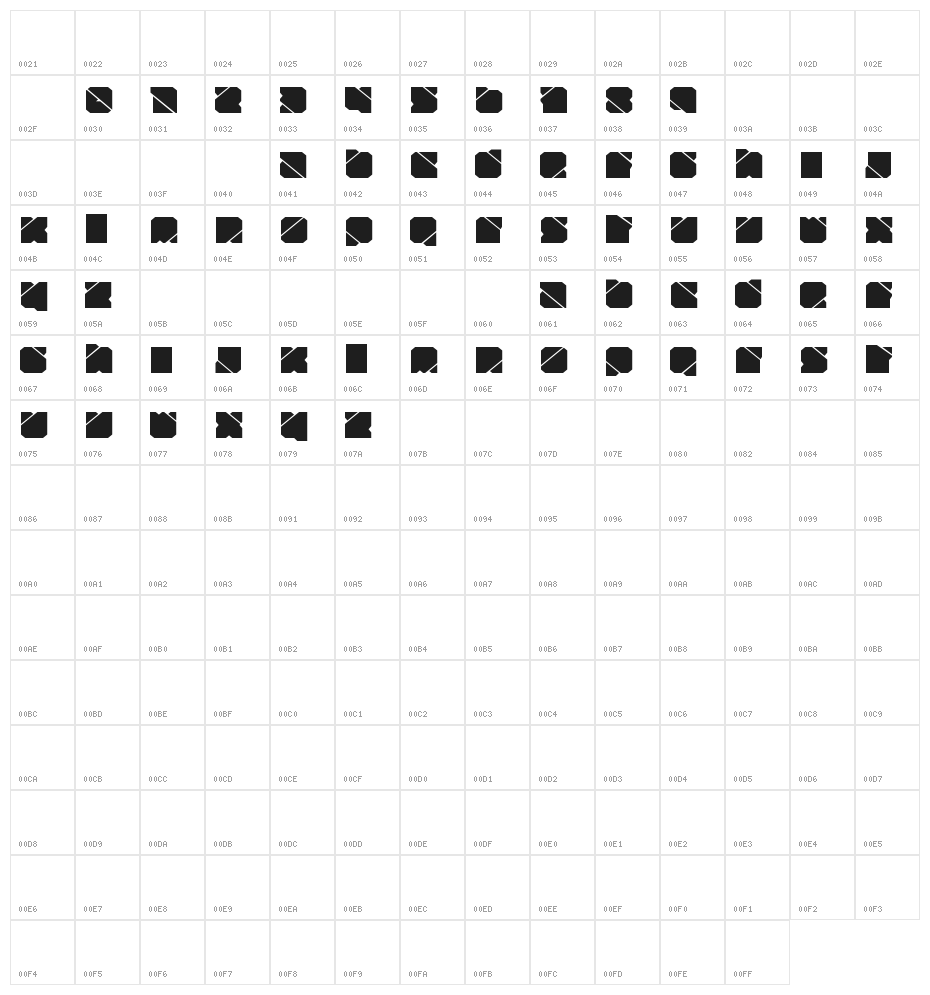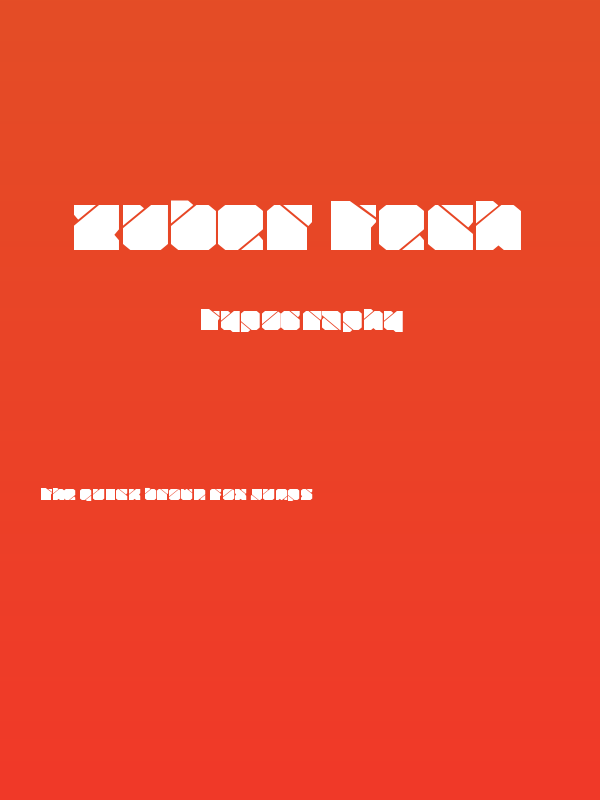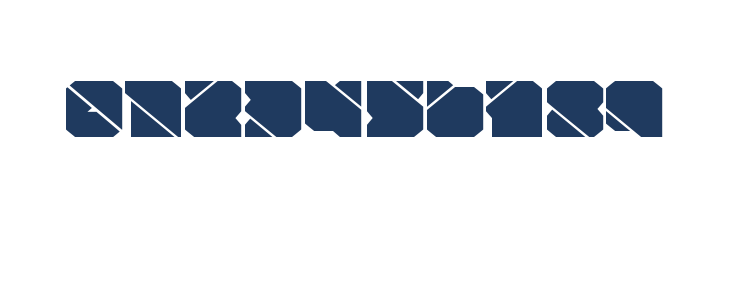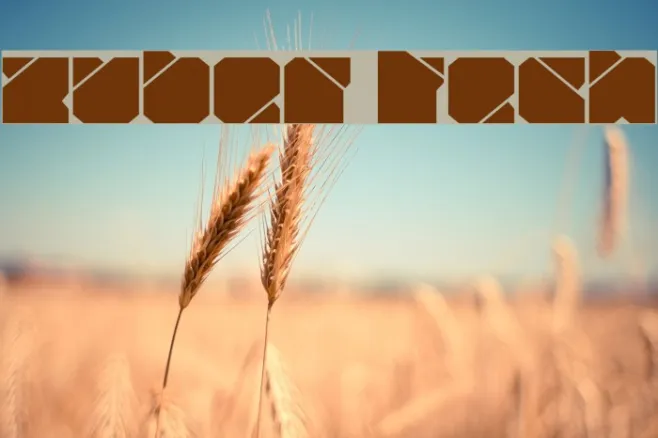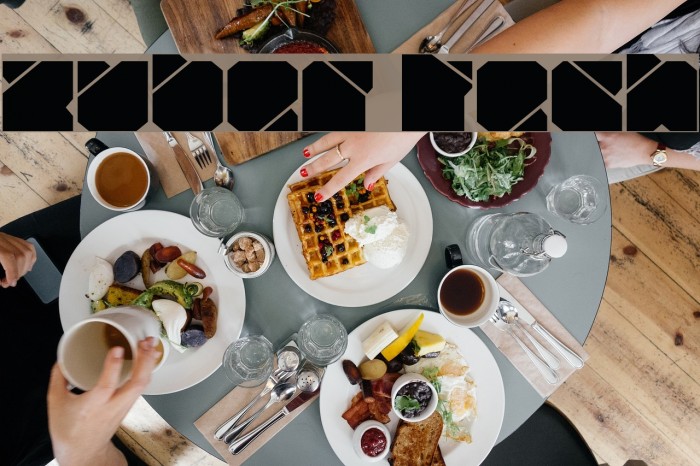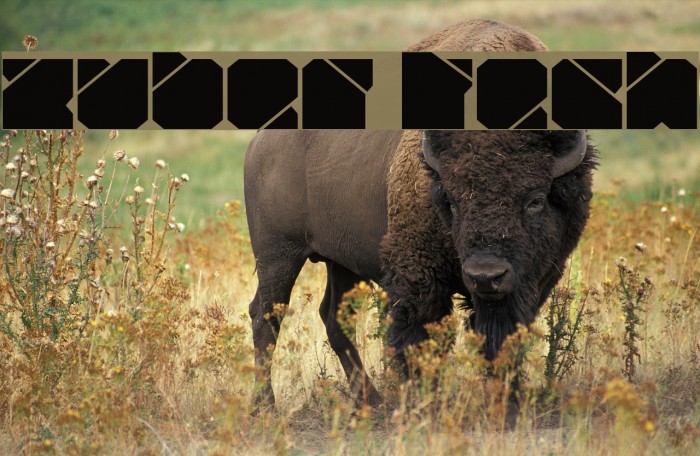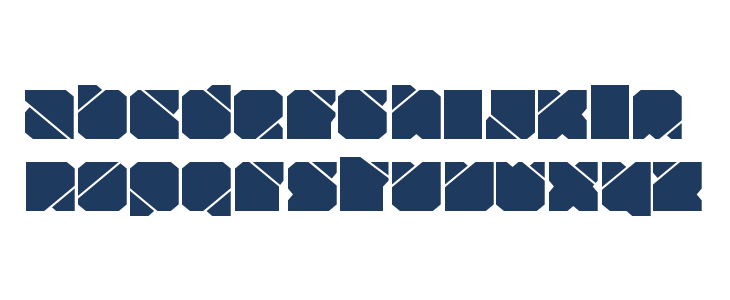
Zuber tech Font
Zuber tech Description
This font features a bold, geometric design with a distinct stencil-like appearance. Each character is composed of solid, blocky shapes with diagonal cuts that create a fragmented look. The style is highly modern and abstract, making it stand out with its unique visual impact. The uppercase and lowercase letters maintain a consistent structure, emphasizing uniformity and cohesion. The numbers and special characters follow the same design principles, ensuring a seamless integration across all elements. The font's overall aesthetic is striking and futuristic, ideal for projects that require a bold statement.
| Proposed Projects | Ideal for branding, posters, album covers, and any project needing a futuristic and bold aesthetic. |